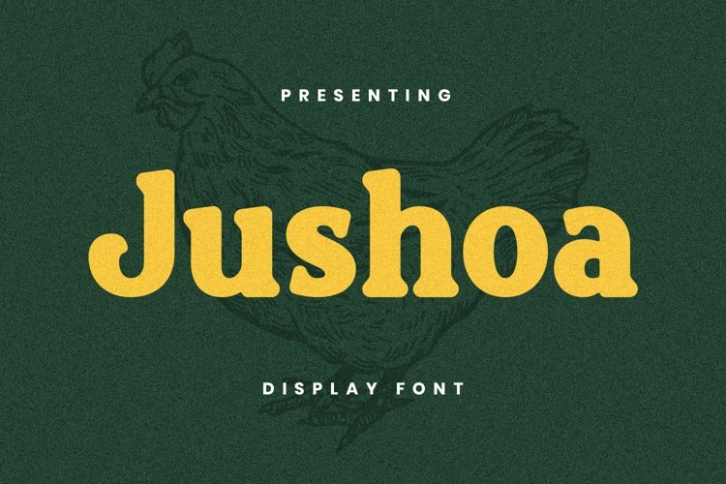
Jushoa is a beautiful font that was designed by plusstore. It's a great choice for designers and creatives who need such a font. It was released on July 21, 2021 and the file size is 21.93 MB. Jushoa may give a more youthful, expressive and casual look to your project. It is a very beautiful, refined, elegant, and high-quality font.